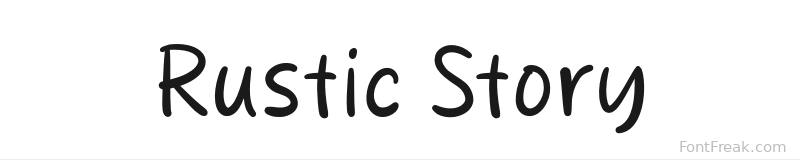
Rustic Story
Rustic Story by Syaf Rizal is a charming handwritten font that embodies a warm, inviting aesthetic. As a display typeface, it features a unique blend of casual elegance and rustic charm, making it perfect for a variety of creative projects. The font exhibits a medium stroke weight with subtle variations that add character while maintaining readability. Its slightly irregular shapes and playful curves create an organic feel, enhancing its rustic appeal. The spacing is well-balanced, ensuring that each character flows seamlessly into the next, contributing to its overall harmonious design.
Ideal for wedding invitations, Rustic Story captures the essence of romance and personalization, making it a favored choice for couples looking to add a touch of whimsy to their special day. It also shines in the context of restaurant menus, where its friendly nature can enhance the dining experience by evoking a homey atmosphere. Graphic designers will find it suitable for crafting engaging product labels or artisanal branding, while content creators can utilize it for eye-catching social media graphics and blog headers. Small business owners can leverage this font to create memorable marketing materials that resonate with their target audience.